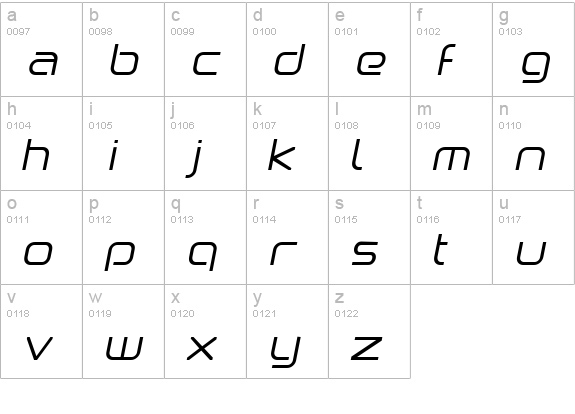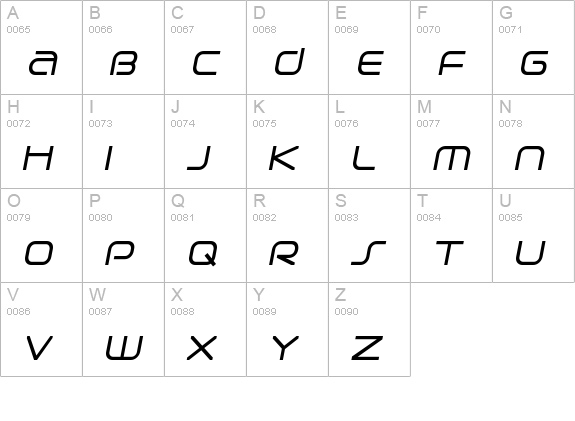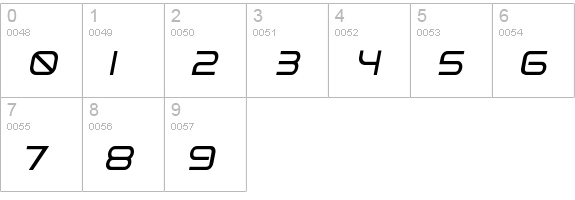
Birdman Oblique Font Details
Birdman Oblique is a distinctive, italic variant in the Birdman typeface family \xE2\x80\x94 well suited to design and typography projects.
Introducing Birdman Oblique font, a modern and stylish typeface that adds a touch of sophistication to any design project. This sleek and elegant font features unique slanted characters that bring a sense of movement and dynamism to your text. Birdman Oblique font is perfect for creating eye-catching logos, branding materials, posters, social media graphics, and more. Its clean lines and sharp angles make it stand out from the crowd, while its versatility allows it to be used in a variety of design applications. Best of all, Birdman Oblique font is available for free download at FontsMarket.com. Whether you're a professional designer looking for a fresh new font to add to your collection or a hobbyist looking to spruce up your personal projects, Birdman Oblique font has got you covered. Download it today and elevate your designs with this stunning typeface.